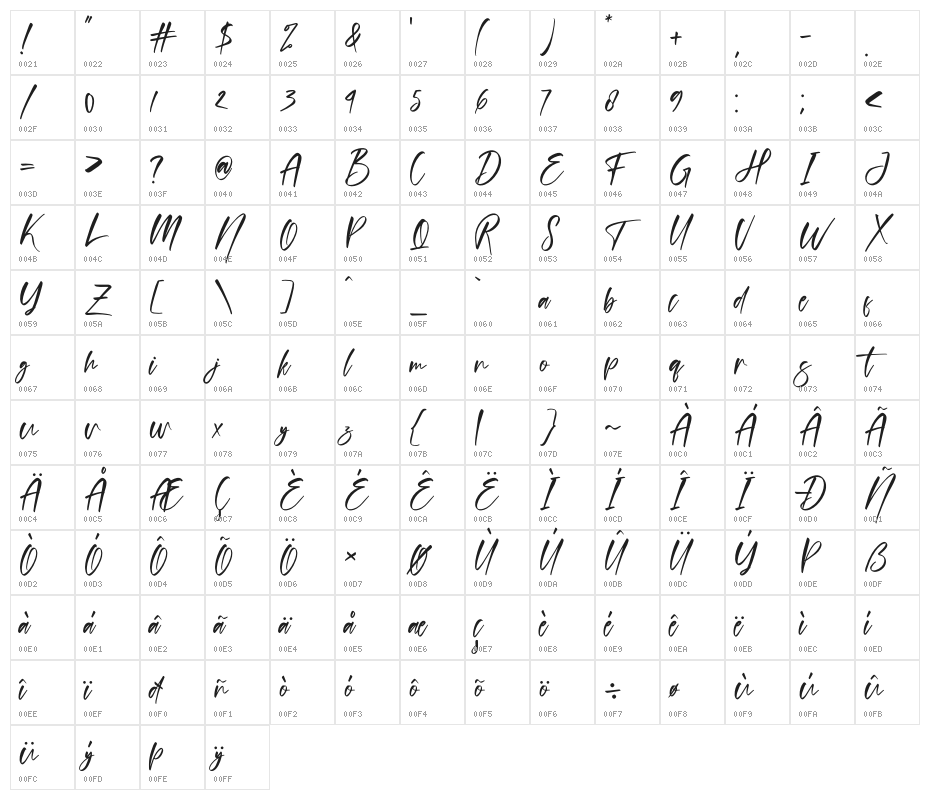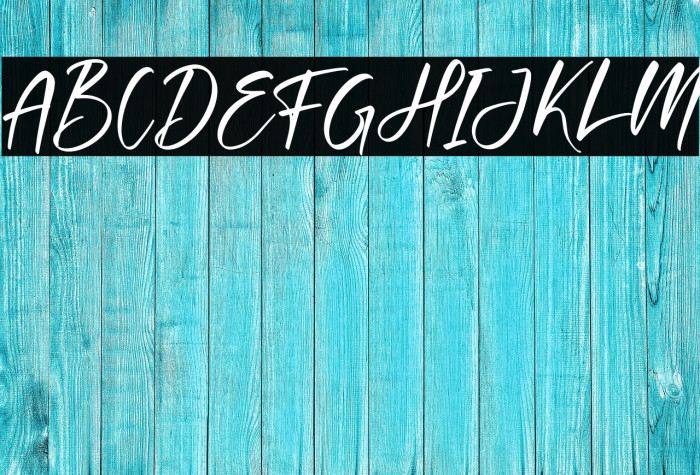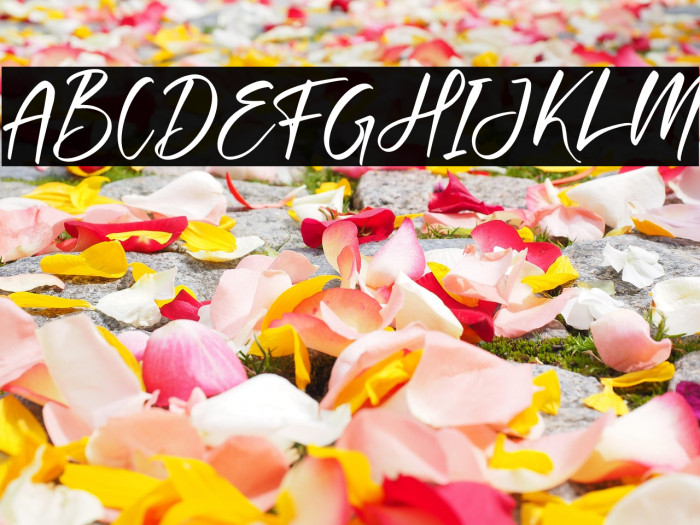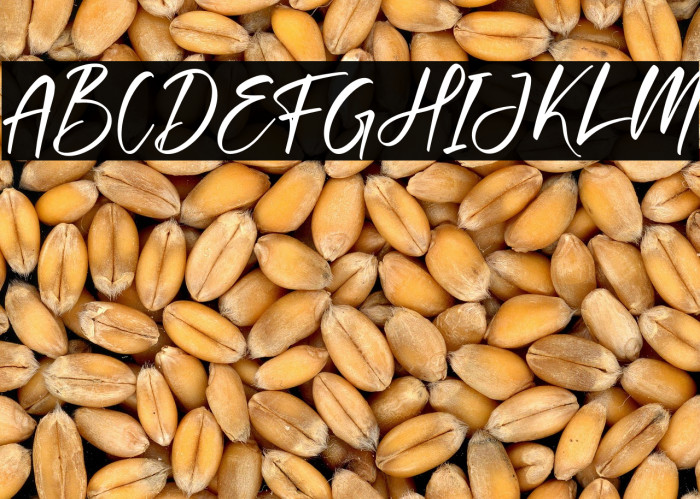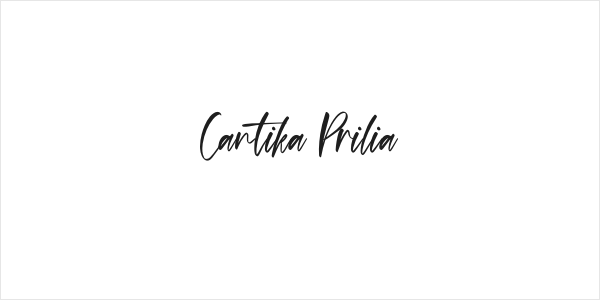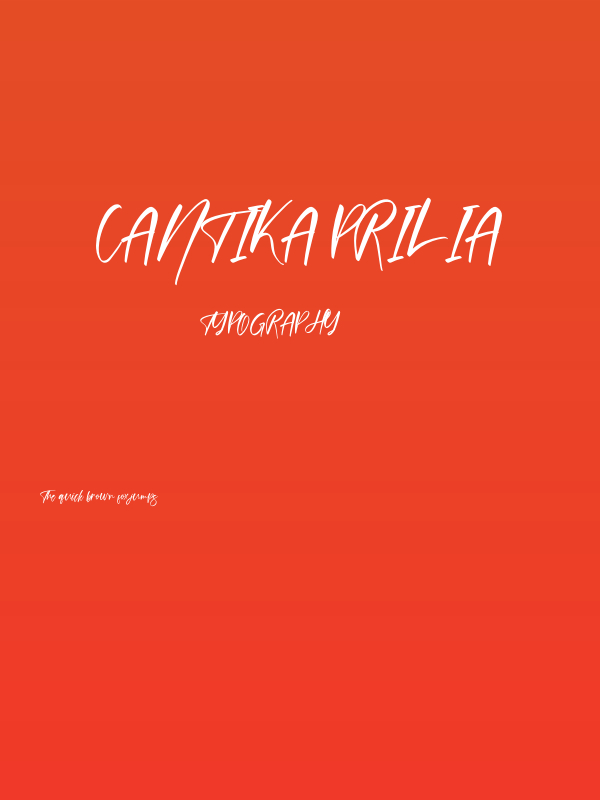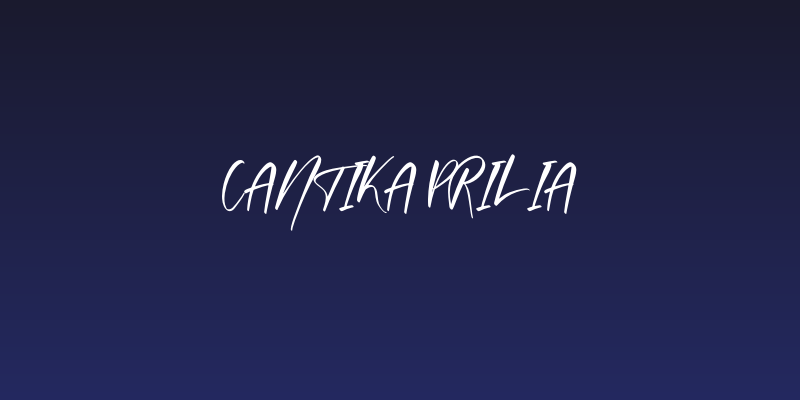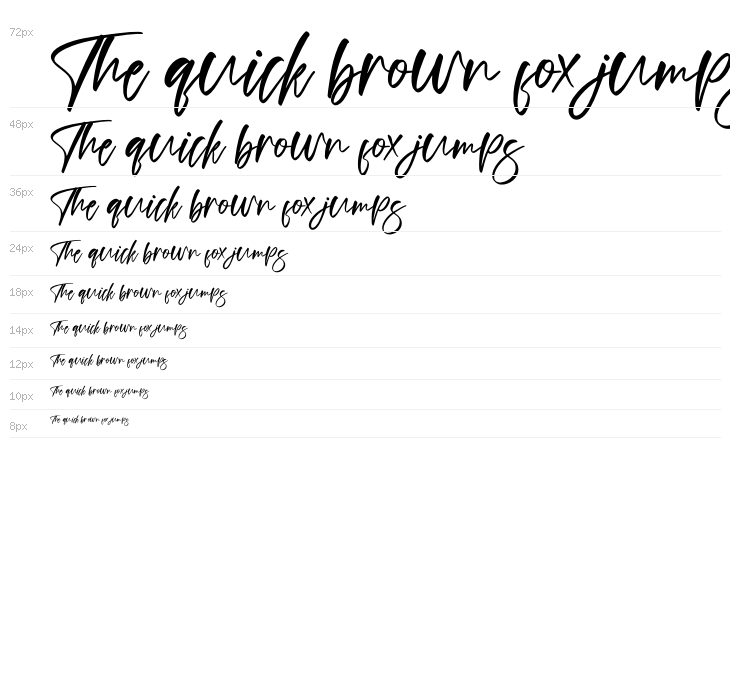
Cantika Prilia Font
Cantika Prilia Description
This font is a dynamic and expressive script style that exudes a sense of elegance and fluidity. The characters are crafted with a smooth, flowing motion, giving it a handwritten appearance. The uppercase letters are bold and slightly slanted, while the lowercase letters maintain a consistent rhythm with varying stroke widths. The numbers and special characters are designed to complement the overall style, maintaining the same fluidity and elegance. This font is perfect for projects that require a personal touch, such as invitations, greeting cards, or branding materials. Its unique style makes it stand out, adding a touch of sophistication and creativity to any design.
| Proposed Projects | Ideal for invitations, greeting cards, branding, and creative projects requiring a personal touch. |